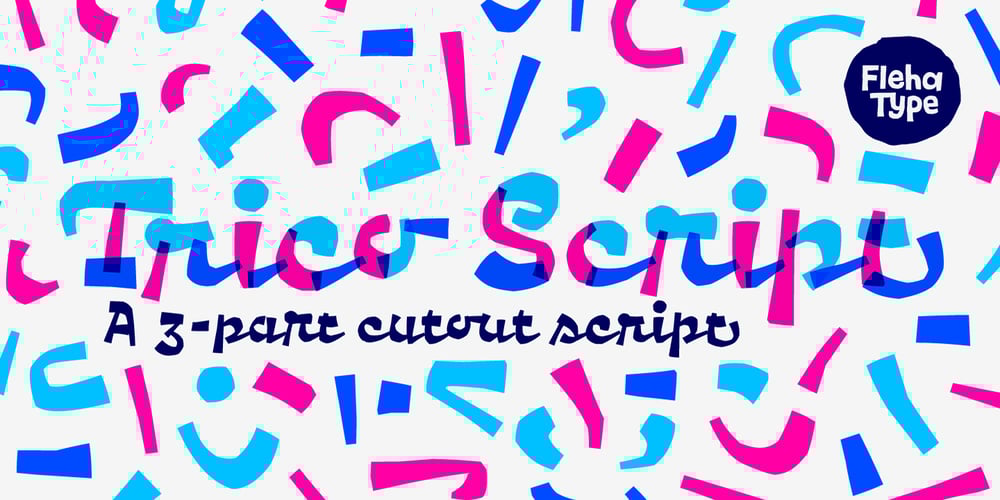
Trico Script Font Family was designed by Mitja Miklavcic and published by FlehaType. Trico Script contains 4 styles and family package options. Trico Script is an attempt to create a script using a cut-out technique. Every basic glyph is made of three forms which gives the script a unique personality and a very distinctive appearance. In order to maintain an even script texture and to keep its character numerous advanced typographic features were created: contextual lowercase alternates, finial lowercase forms, two sets of uppercases, standard and discretionary ligatures etc. Trico Script can either be used as a regular script or as a typeface in three layers. Although the regular version is surprisingly legible in small sizes it’s distinctive character is suitable for the projects where a powerful wordmark is needed. This typically includes cases such as packaging, editorial design, digital use, social media and branding.